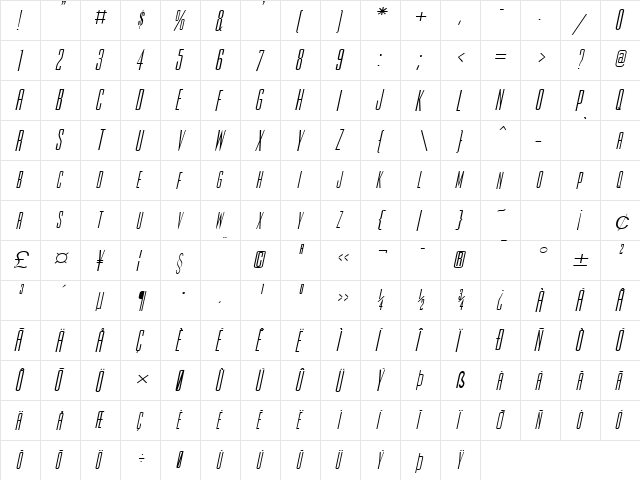
Slim-Jim-Extended Italic Font Preview
Slim-Jim-Extended Italic
Slim-Jim-Extended Italic Font Details
Design Context for Slim-Jim-Extended Typeface
Slim-Jim-Extended offers clean, dependable letterforms without strong stylistic allegiance, making it a practical choice for designers who need flexibility. Its italic angle brings a sense of urgency and motion to the letterforms.
Pro Tip: Use Slim-Jim-Extended for emphasis, pull quotes, and subheadings where its slanted energy can add rhythm to the layout.